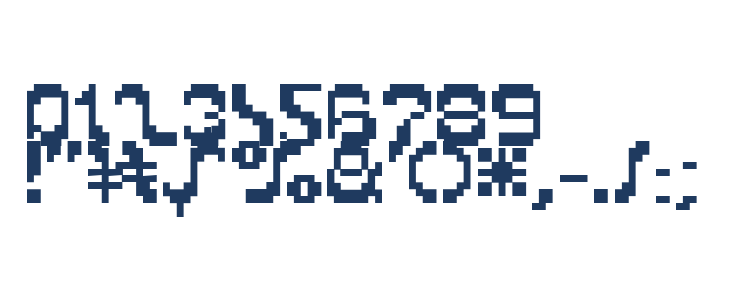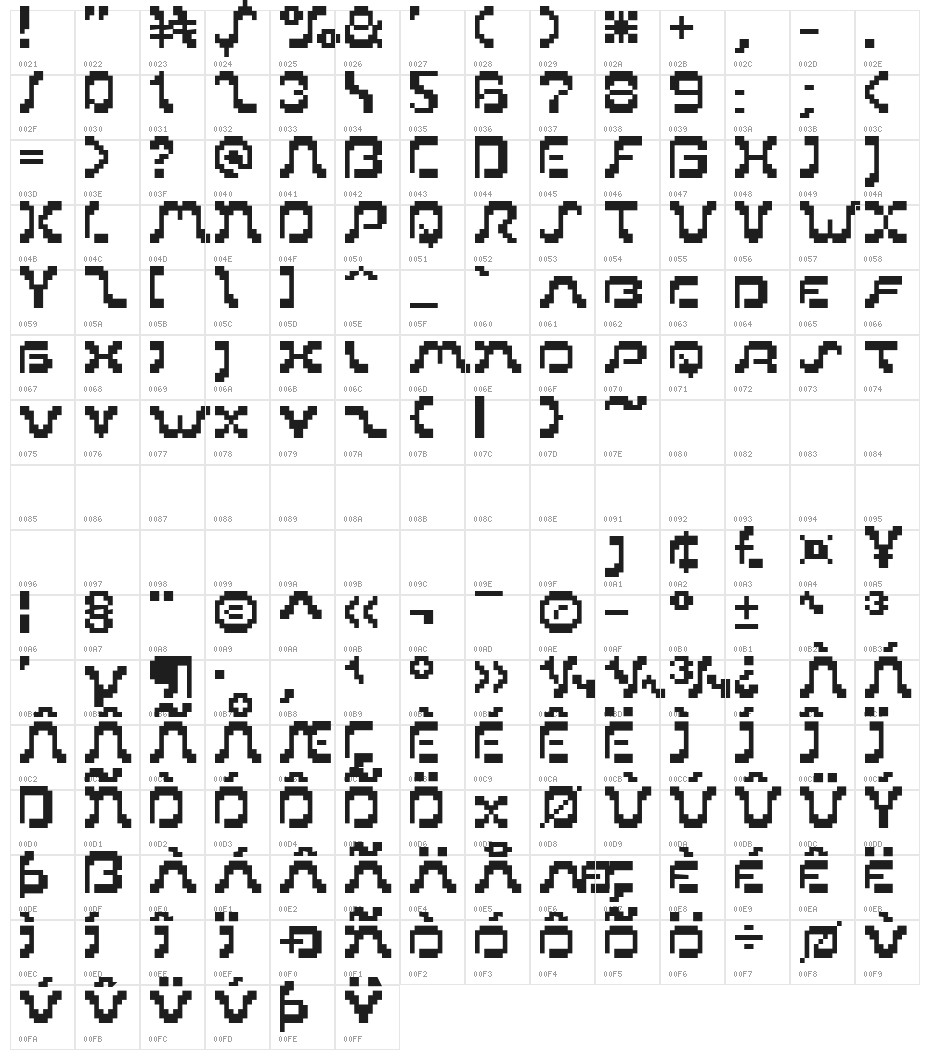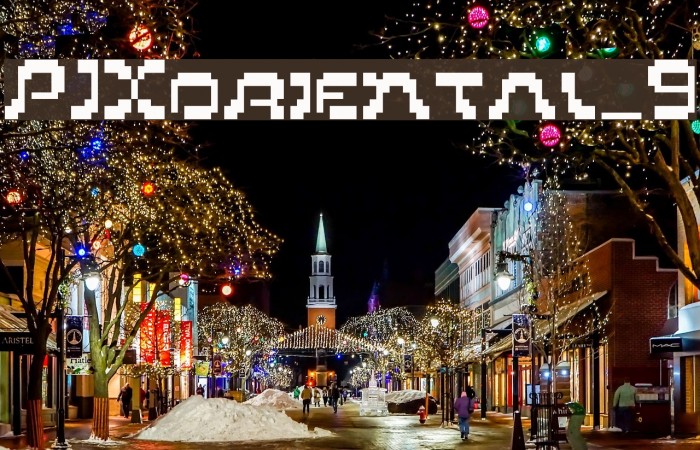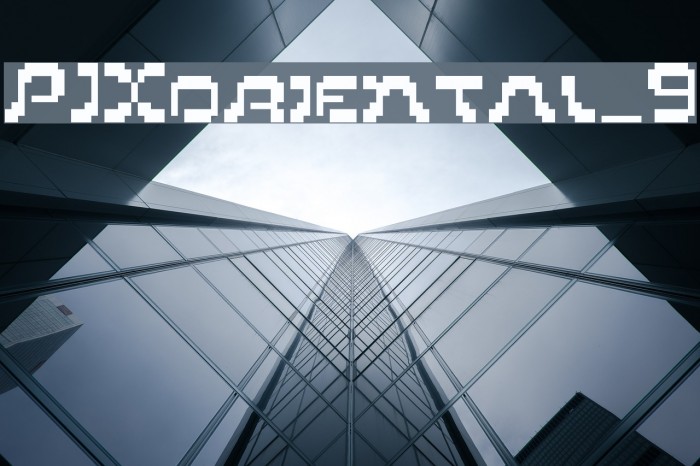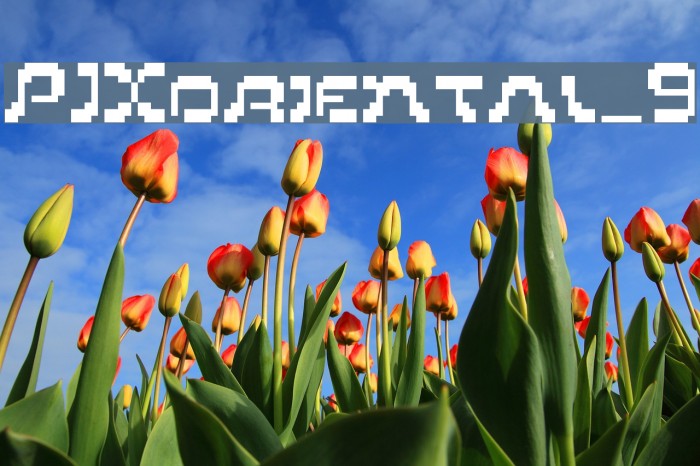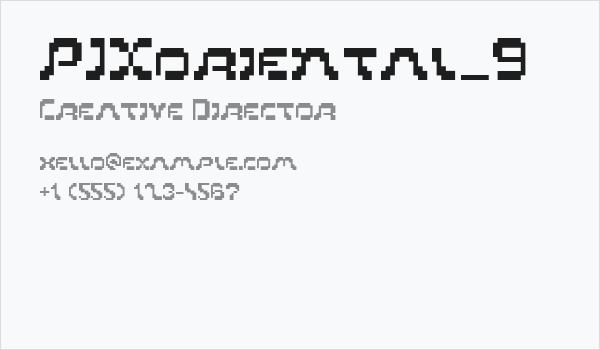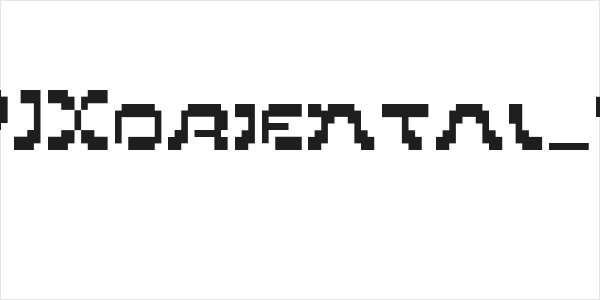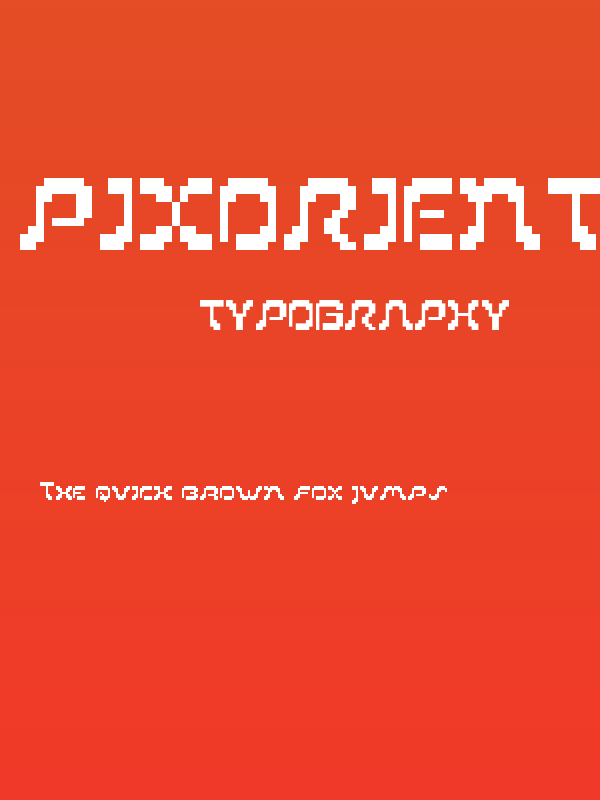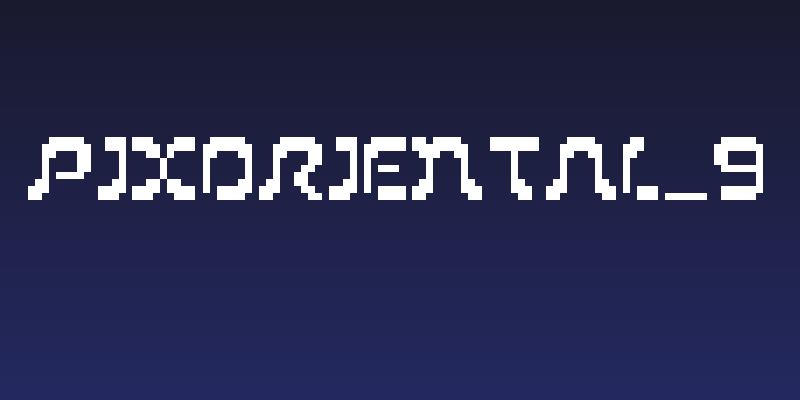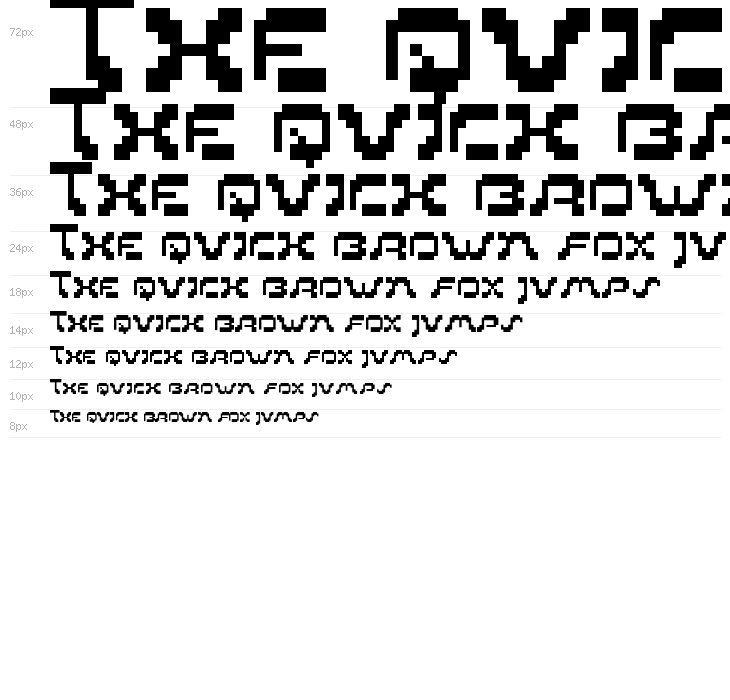
PIXoriental_9 Font
PIXoriental_9 Description
This font features a bold, pixelated design reminiscent of early digital displays and retro video games. Each character is constructed with a blocky, geometric style, giving it a distinctly digital and futuristic appearance. The uppercase and lowercase letters maintain a consistent height, contributing to a uniform look across the text. The numbers and special characters follow the same pixelated pattern, ensuring cohesion throughout. This font's unique style makes it stand out, ideal for projects that aim to evoke nostalgia or a tech-inspired aesthetic.
| Overall Style | Retro, Digital |
| Proposed Projects | Ideal for video game design, retro-themed posters, digital art projects, and tech-related branding. |